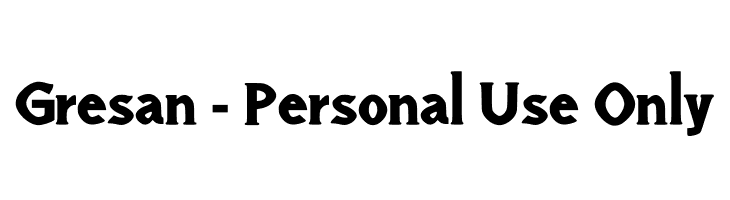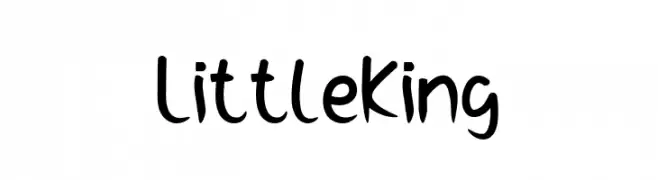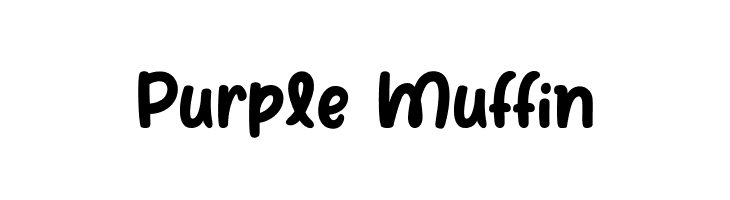
A bold, dynamic serif font with a modern twist.
A bold, playful font with a hand-drawn, whimsical style.
A playful, hand-drawn font with rounded, consistent strokes and a whimsical charm.
A playful, hand-drawn font with tall, narrow letters and a whimsical style.
A tall, slender, and modern font with a sleek and elegant appearance.
A dramatic, elongated font with sharp, tapering strokes and a hand-drawn feel.
A playful, handwritten font with a modern and friendly style.
A modern, clean sans-serif font with a sleek, uniform design.
A distressed, textured font with a rugged, edgy appearance.
A bold, hand-drawn font with dynamic, irregular strokes.